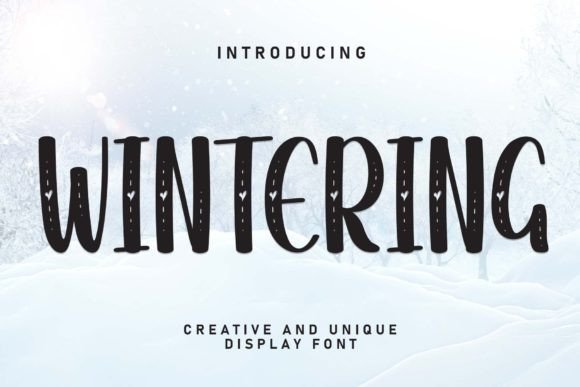
Introducing Wintering Font, a delightful and charming handwritten display font that will add a touch of sweetness and fun to your designs. Created by the talented Strongkeng Old, this font is the perfect choice for fashion bloggers and design enthusiasts who crave a unique and eye-catching aesthetic.
With its sweet and friendly appearance, Wintering Font is a versatile companion for all your creative endeavors. Whether you're designing wedding invitations, crafting beautiful cards, or simply looking to add a fun touch to your projects, this font has got you covered.
Capture the hearts of your audience with Wintering Font's playful and captivating style. Let your words dance across the page, leaving a lasting impression on anyone who lays eyes on your creations. Its handwritten quality adds a personal and authentic touch, making it the best font for fashion bloggers who want to stand out from the crowd.
This font is more than just letters on a page; it's an experience. As you type out your thoughts and ideas, you'll feel a sense of joy and creativity flowing through you. Wintering Font sparks inspiration and encourages you to think outside the box, allowing your designs to truly come to life.
Imagine the excitement of your readers as they visit your fashion blog and are greeted by the stunning Wintering Font. Its unique and captivating style will instantly draw them in, creating a memorable and engaging experience. With this font, your blog posts will shine, leaving a lasting impression in the minds of your readers.
Don't settle for ordinary fonts when you can have the extraordinary. Wintering Font is the secret ingredient that will elevate your designs and set them apart from the rest. Embrace its charm, embrace its playfulness, and watch as your creations become a true work of art.